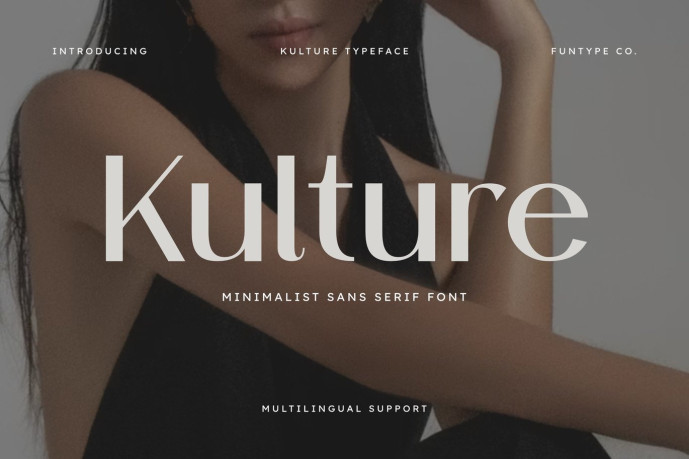
Kulture – Modern Minimalist Sans Serif Font
Kulture is an elegant, high-end, and modern minimalist sans serif font, meticulously engineered to bring a sophisticated lifestyle presence, refined geometric balance, and clean editorial luxury to contemporary display layouts. Featuring a sleek structural profile, unique high-contrast stem details, and beautifully balanced terminals, Kulture introduces a premium high-fashion, upscale corporate, and prominent digital media aesthetic designed to elevate visual narratives.
This font family is the ultimate choice for creative directors, luxury brand publishers, and agency designers looking to implement a sophisticated, high-identity typography for major text hierarchies. Whether you are developing high-end cosmetic branding, luxury real estate identity materials, boutique hotel signage, editorial magazine covers, cinematic lifestyle title sequences, or prominent web headers, Kulture stands out with supreme clarity and artistic confidence.
Main Features:
Minimalist Luxury Sans Structure: Optimized with clean lines and high-fashion contrast for elegant title compositions.
Sophisticated Geometric Balance: Refined structural curves crafted to secure immediate audience attention in premium layouts.
Multilingual Support: Fully loaded and prepared for cross-platform international marketing campaigns.
Premium Editorial Aesthetic: Sleek linear strokes balanced with contemporary curves, perfect for cutting-edge corporate identities and lifestyle media networks.
Best Used For: High-end editorial layout design, luxury lifestyle branding, corporate presentation titles, cinematic romance or drama movie title sequences, premium jewelry and beauty marketing materials, corporate enterprise logotypes, and large-scale web splash banners.